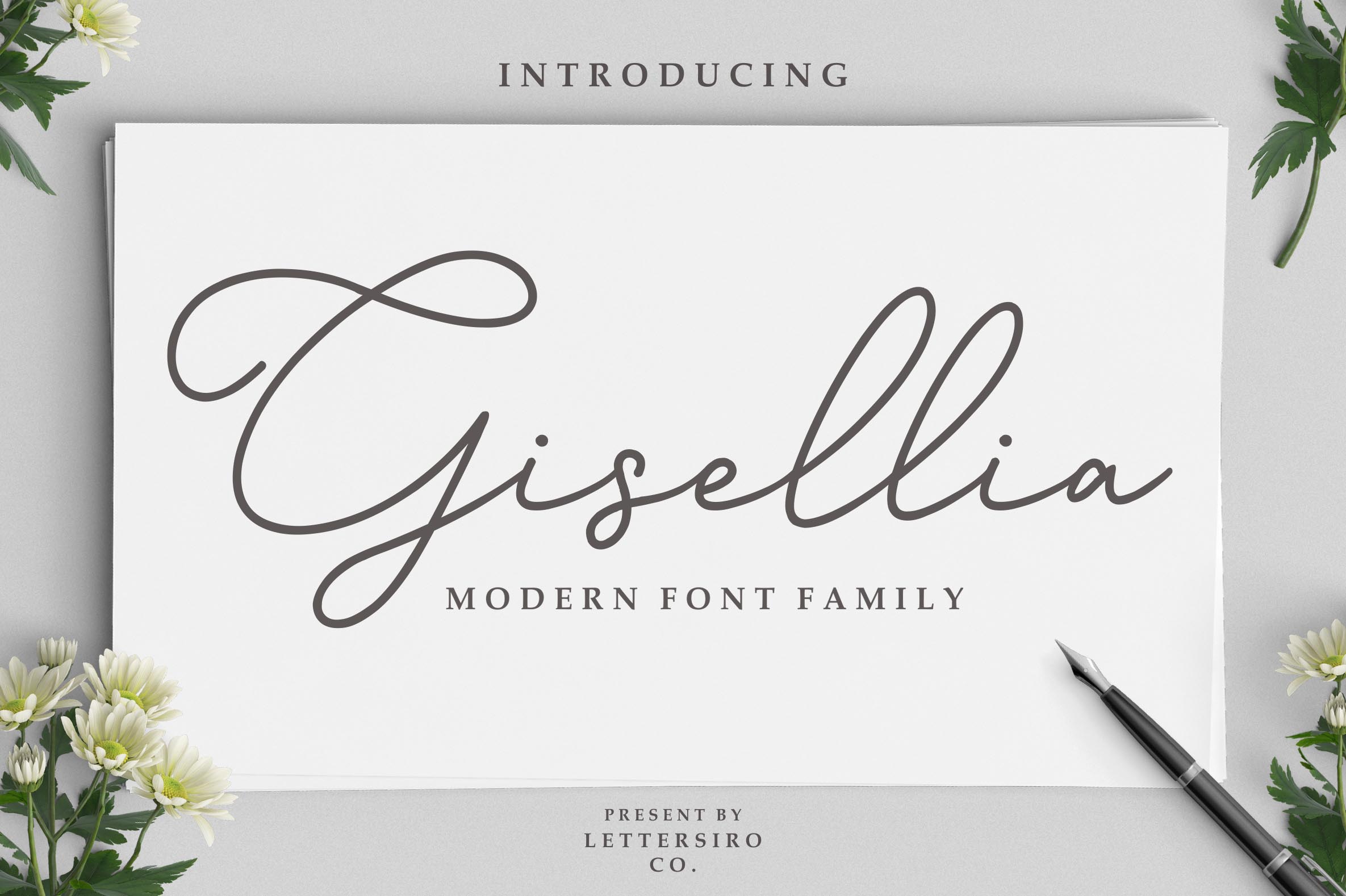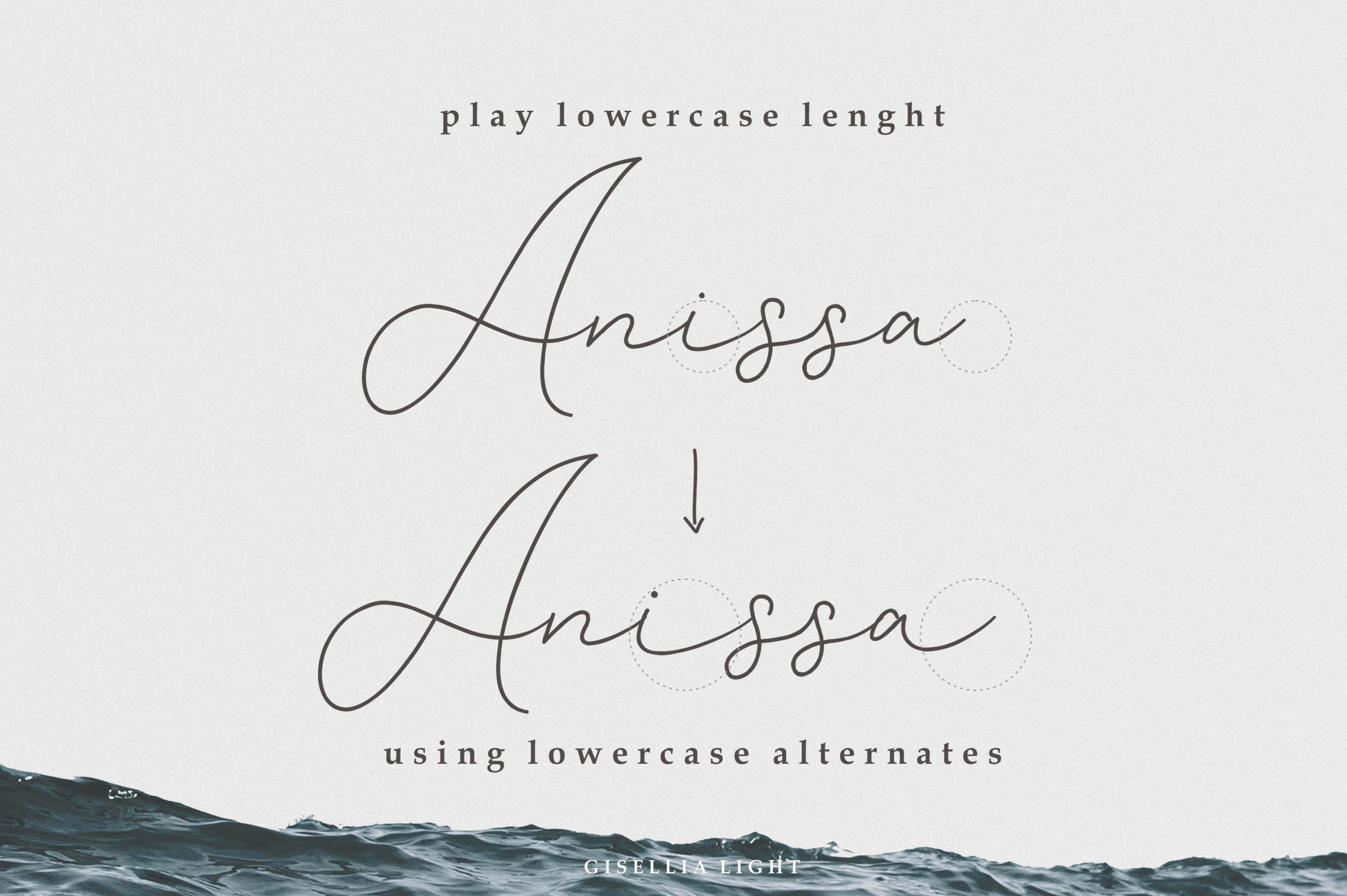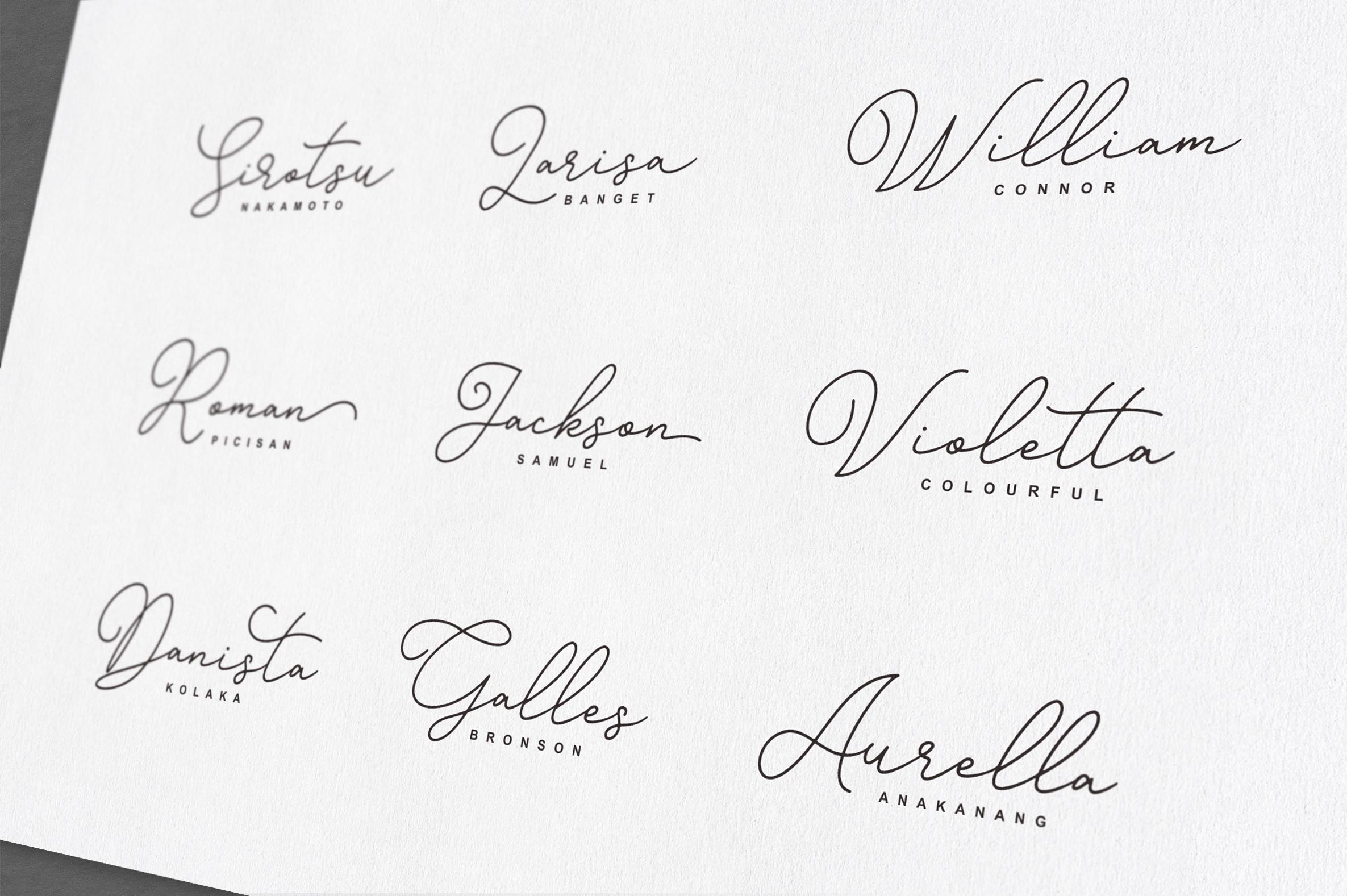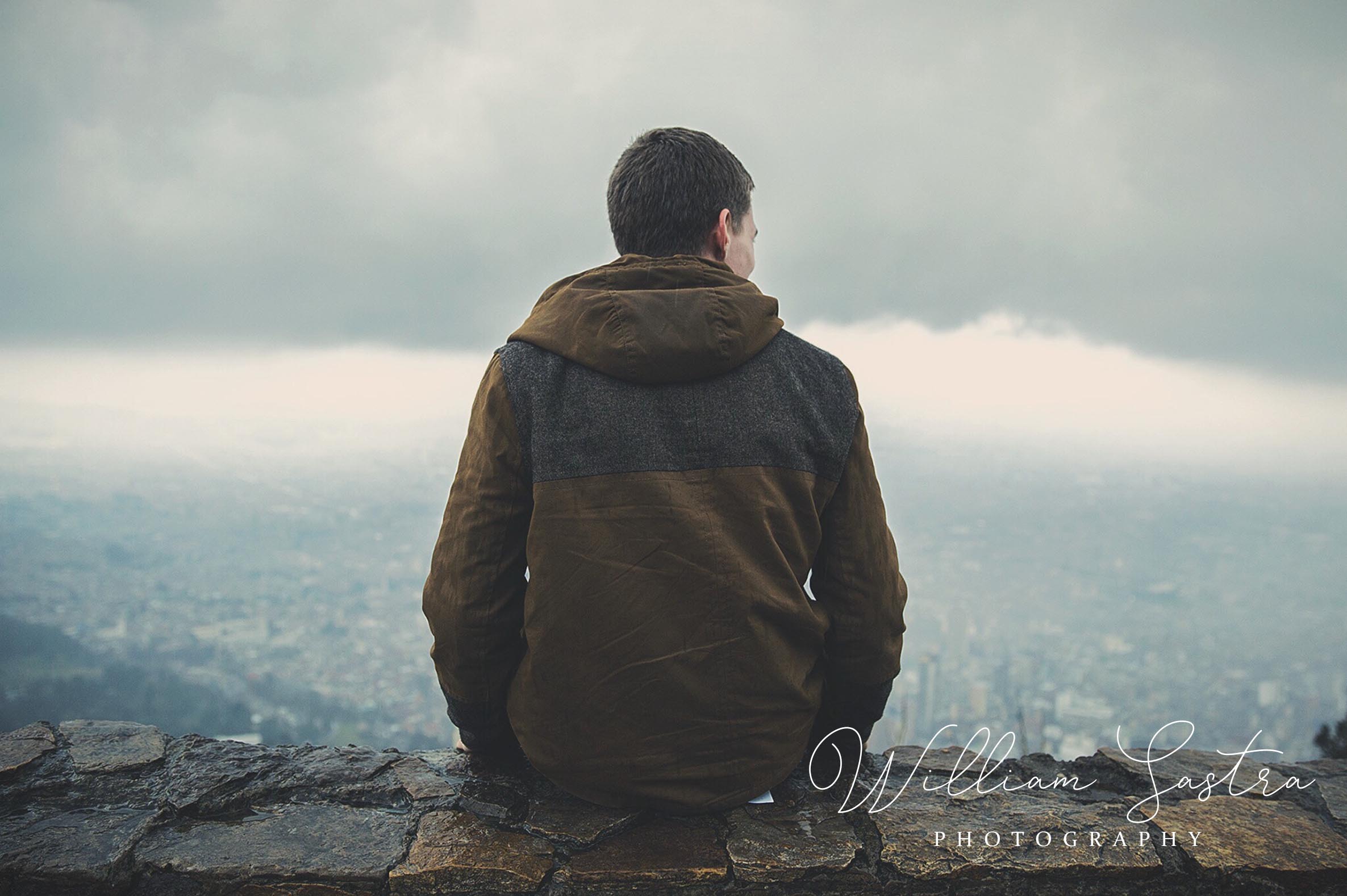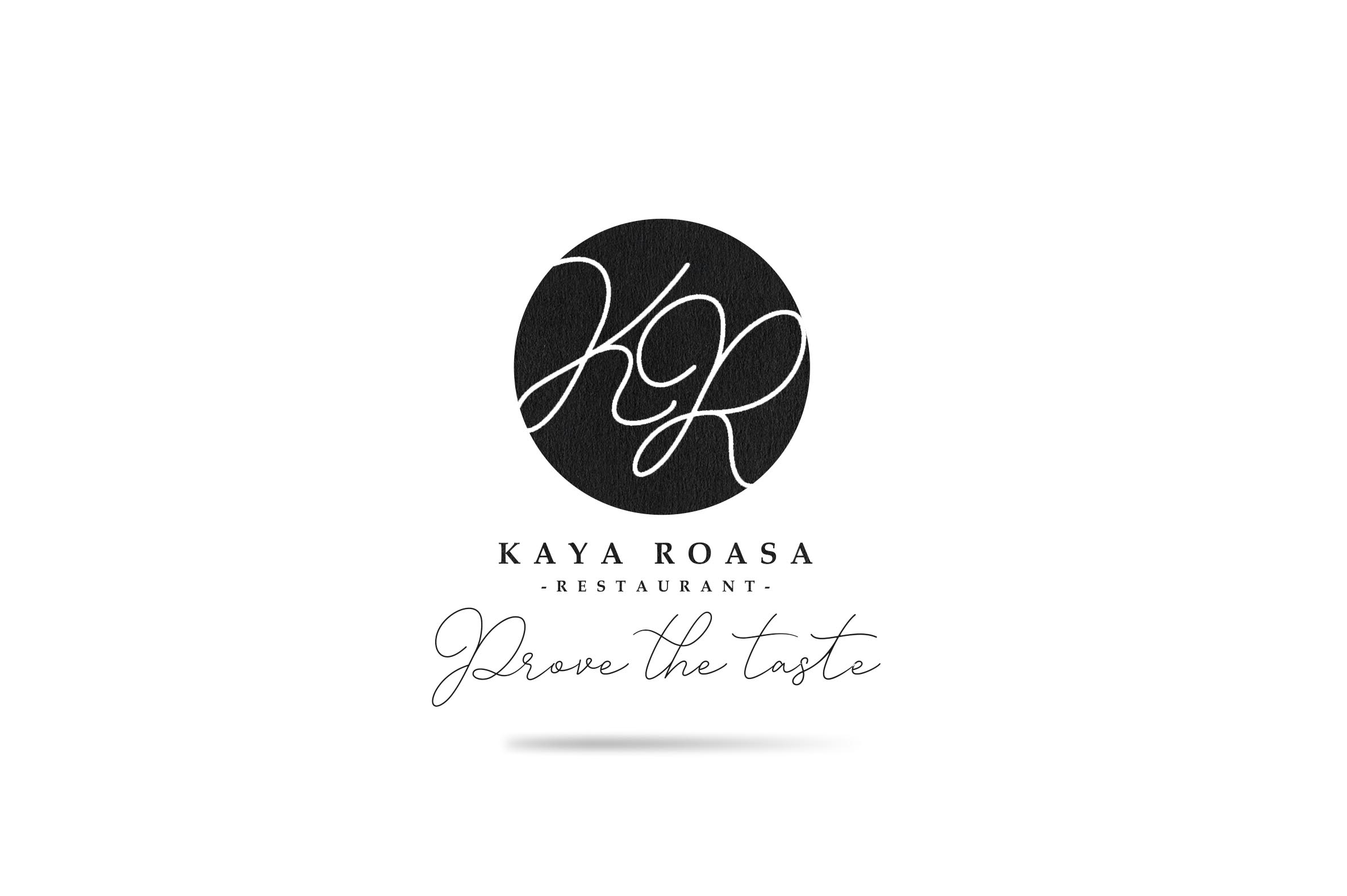
Gisellia Font
About Gisellia Font
The Gisellia family is the perfect set of fonts for creating stunning personal designs.
It features a great mix of professionalism with a gentle personal touch, which makes it good for both branding and marketing, but also for craft projects.